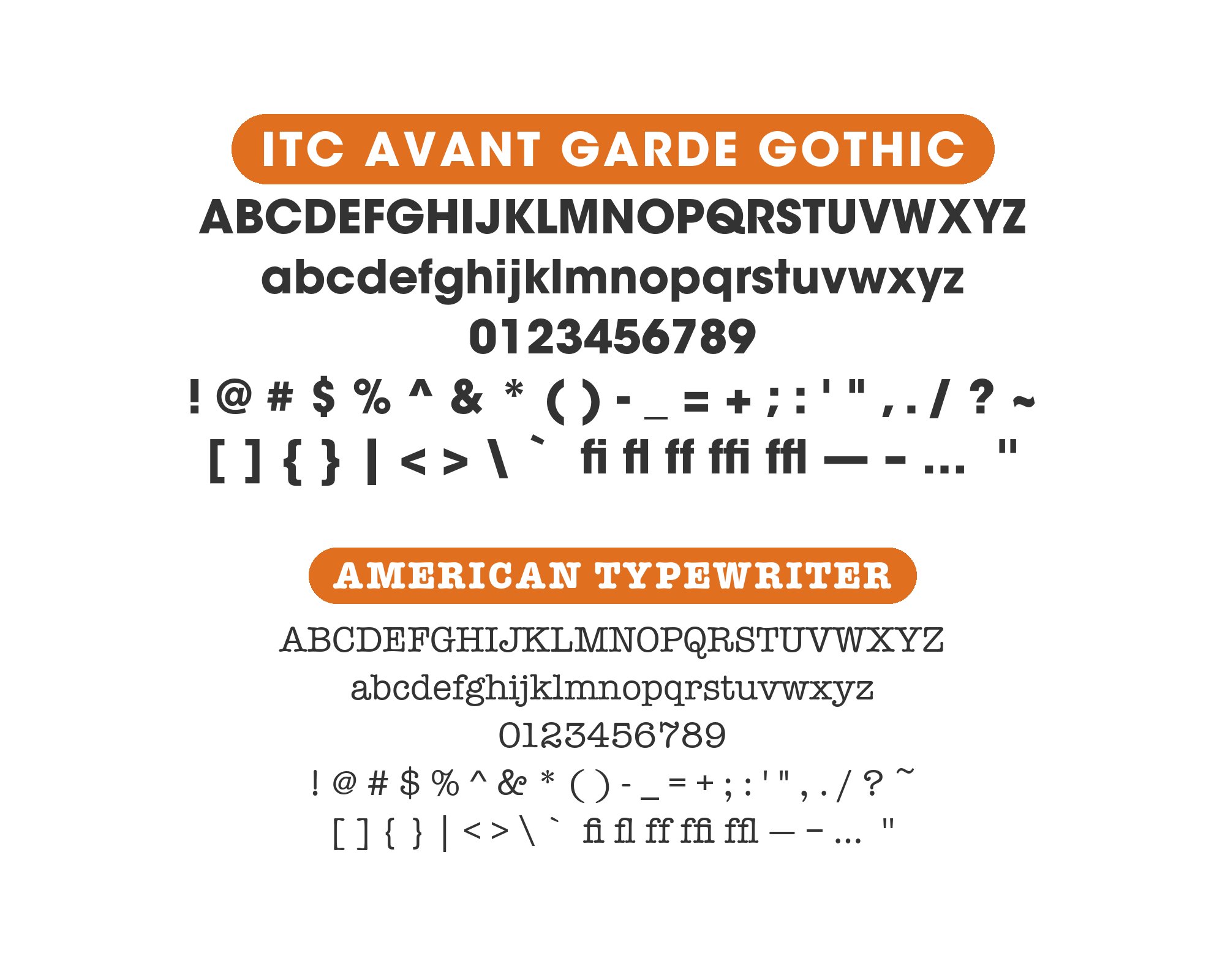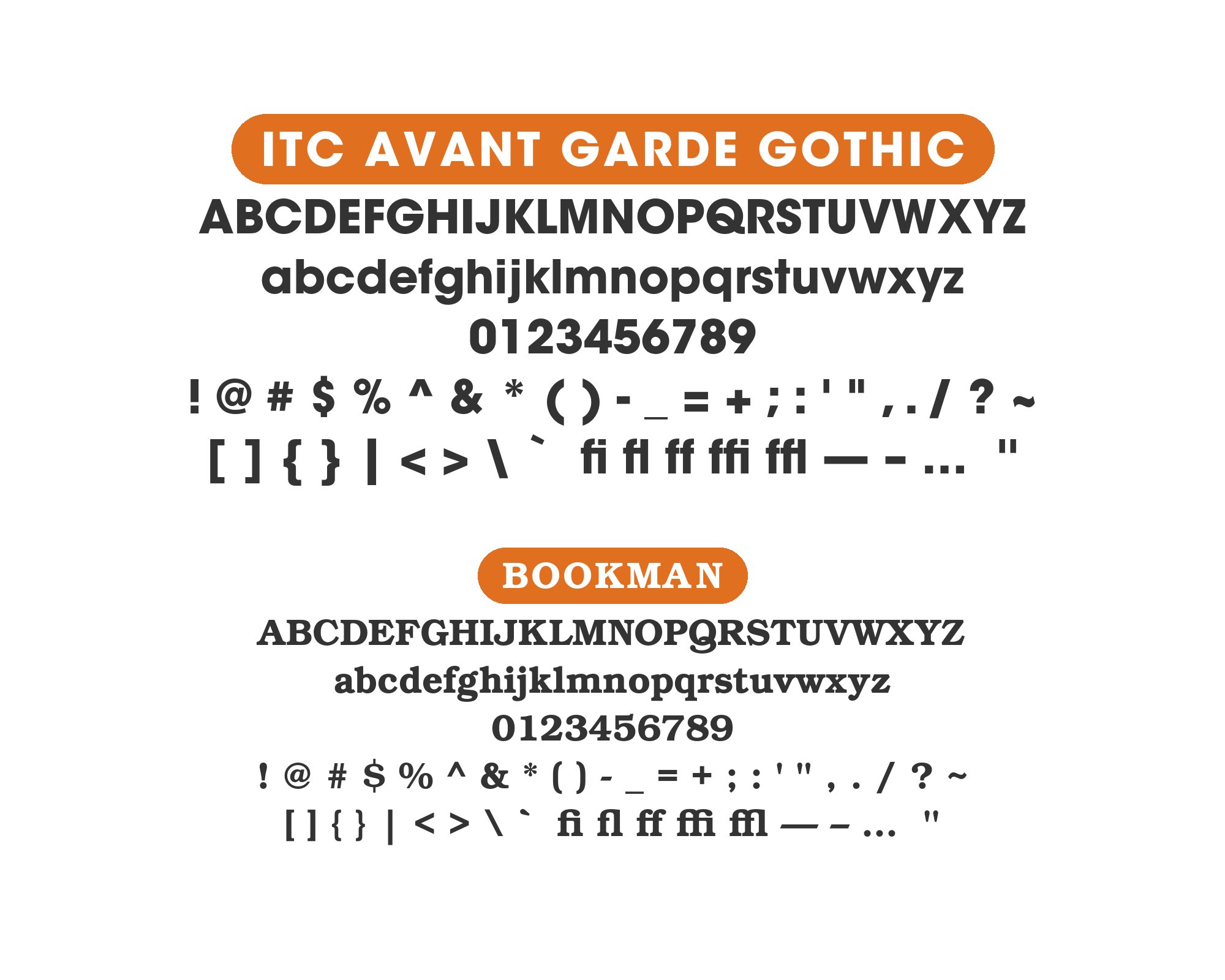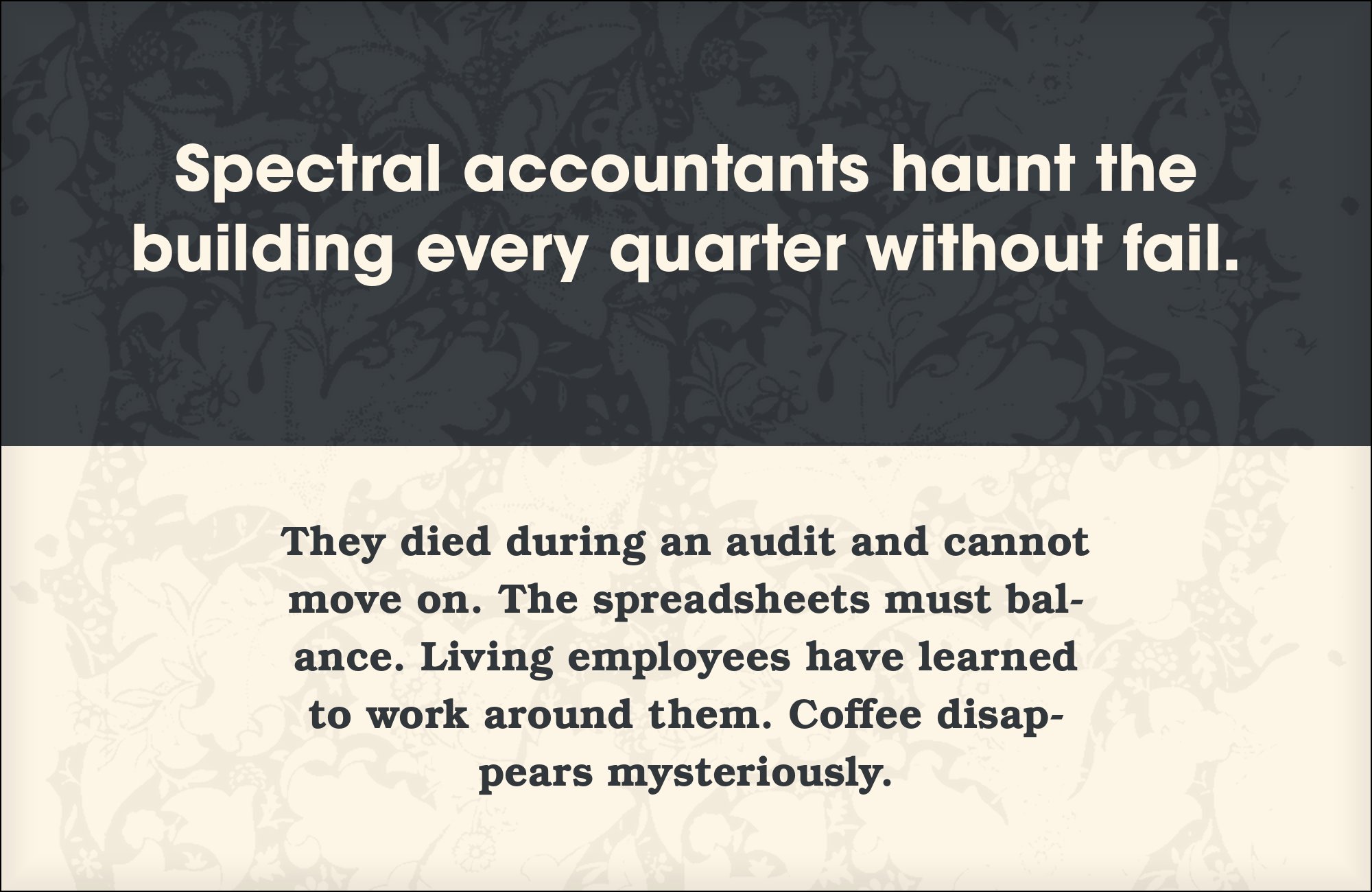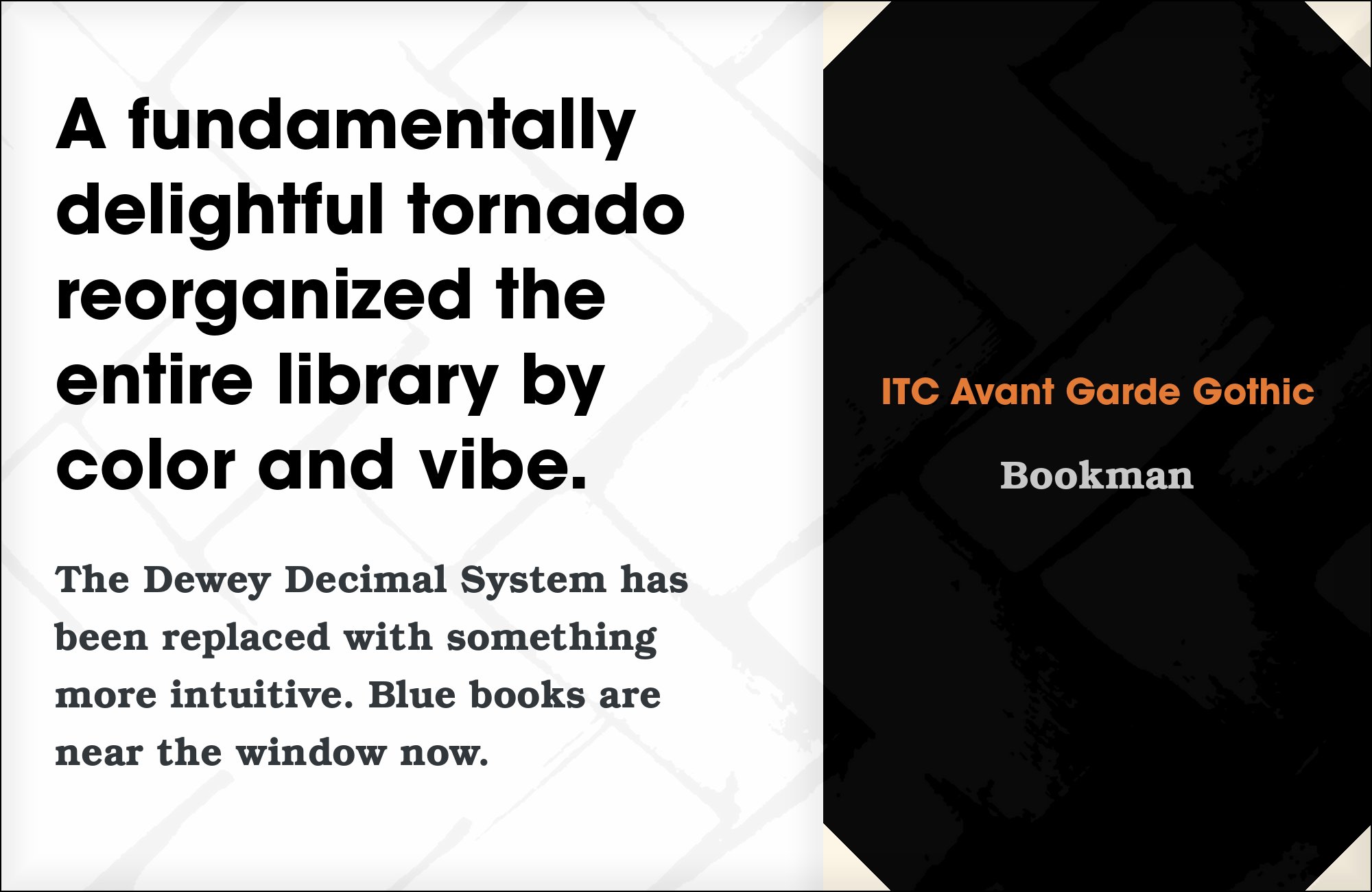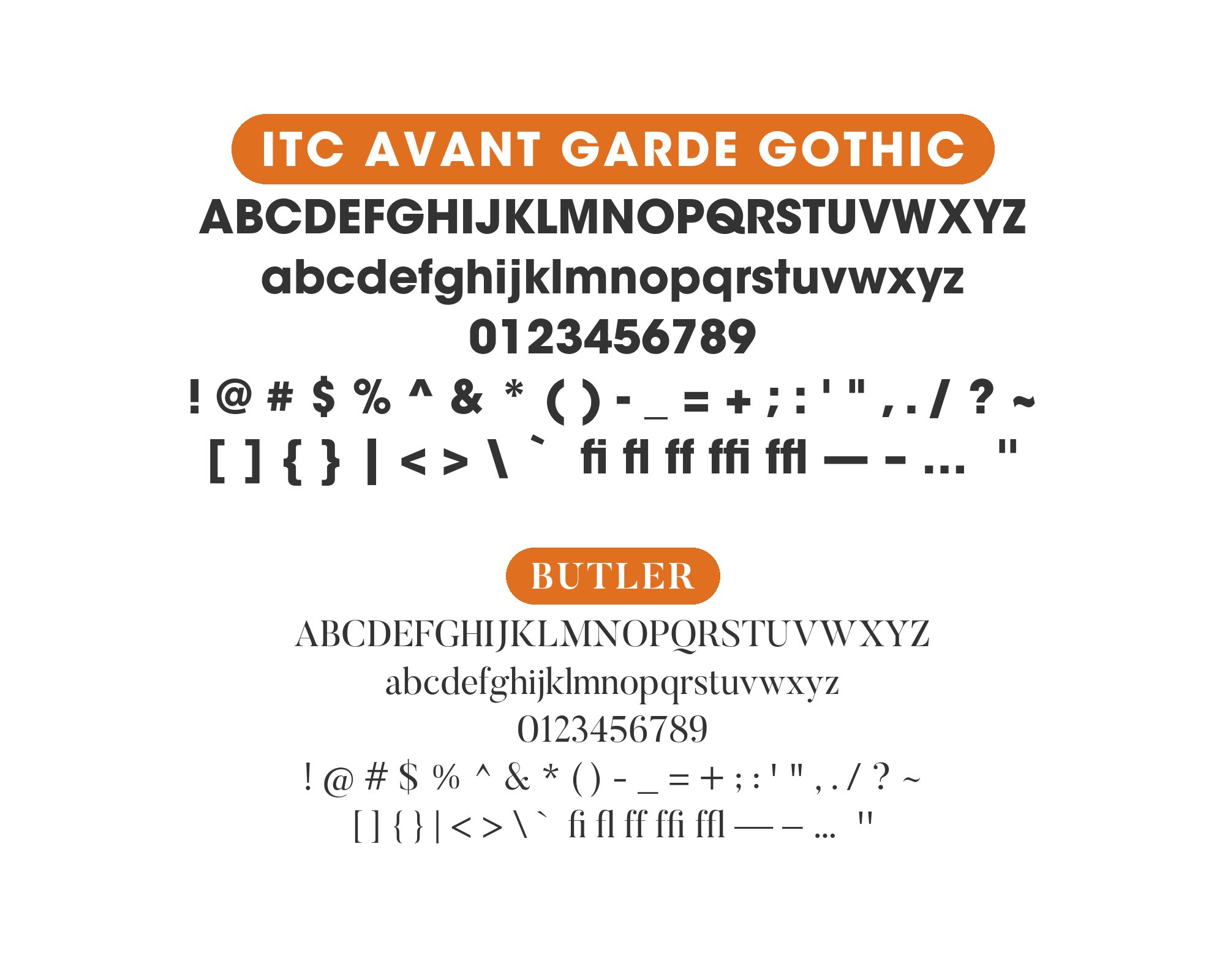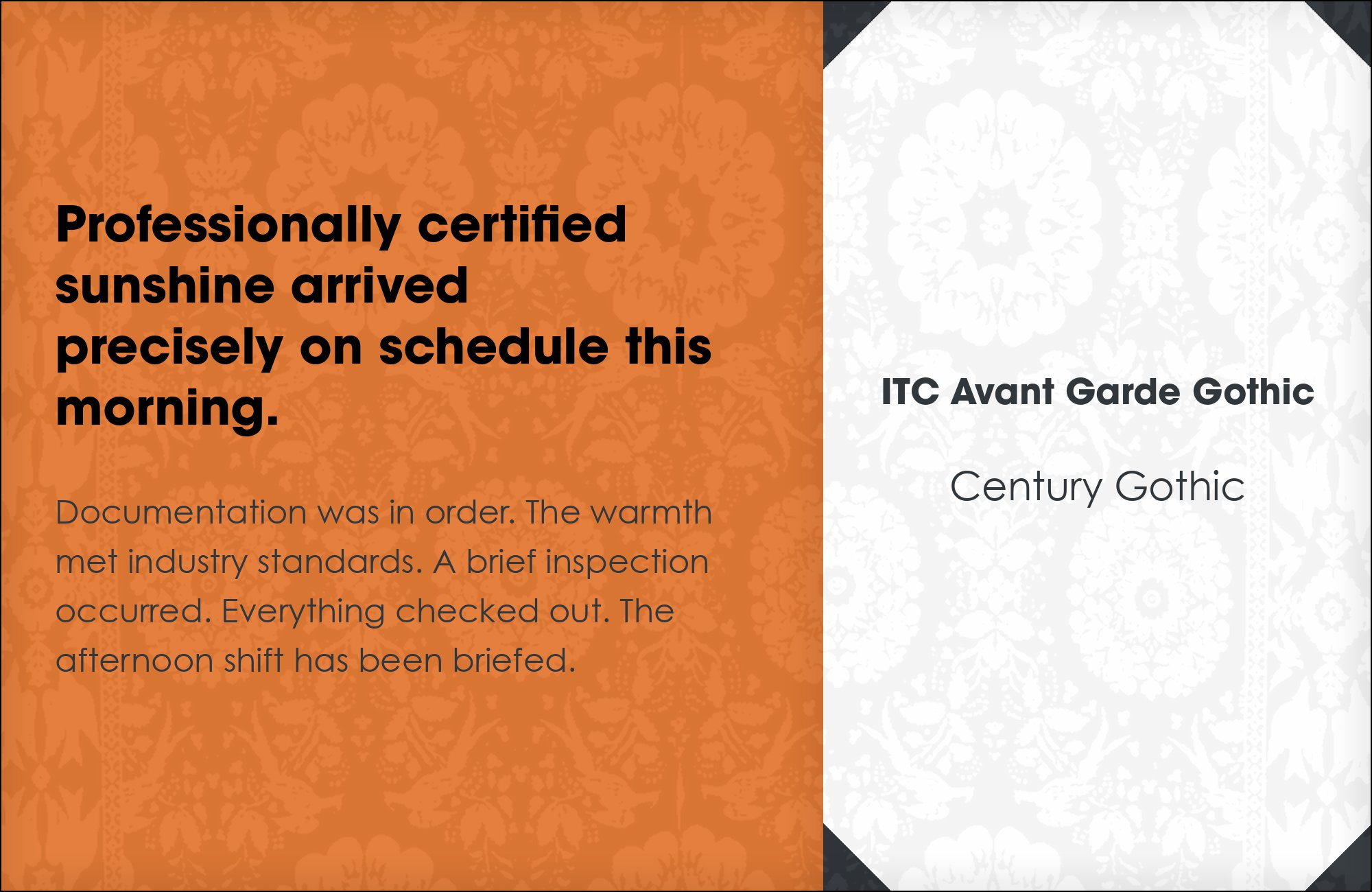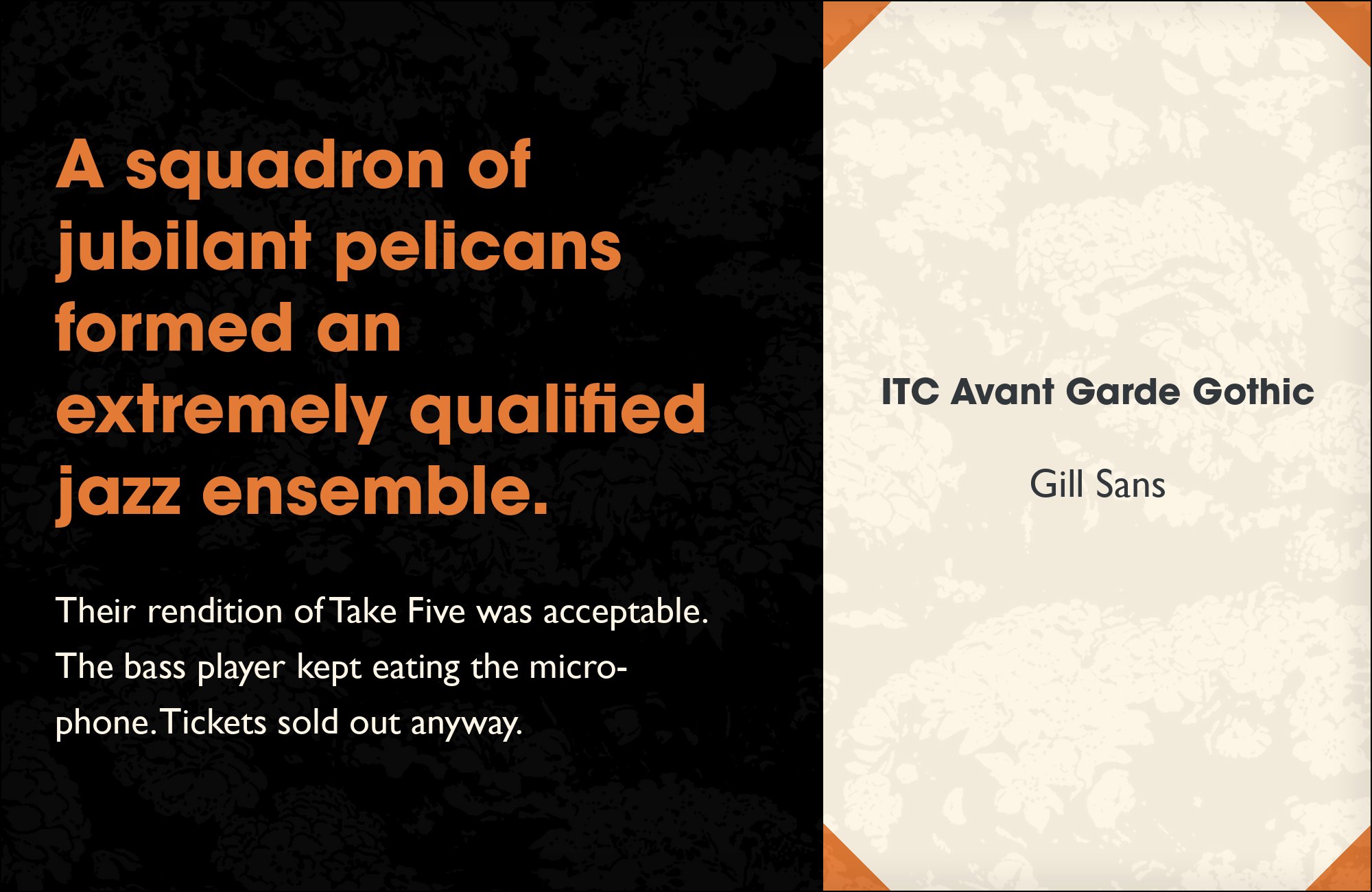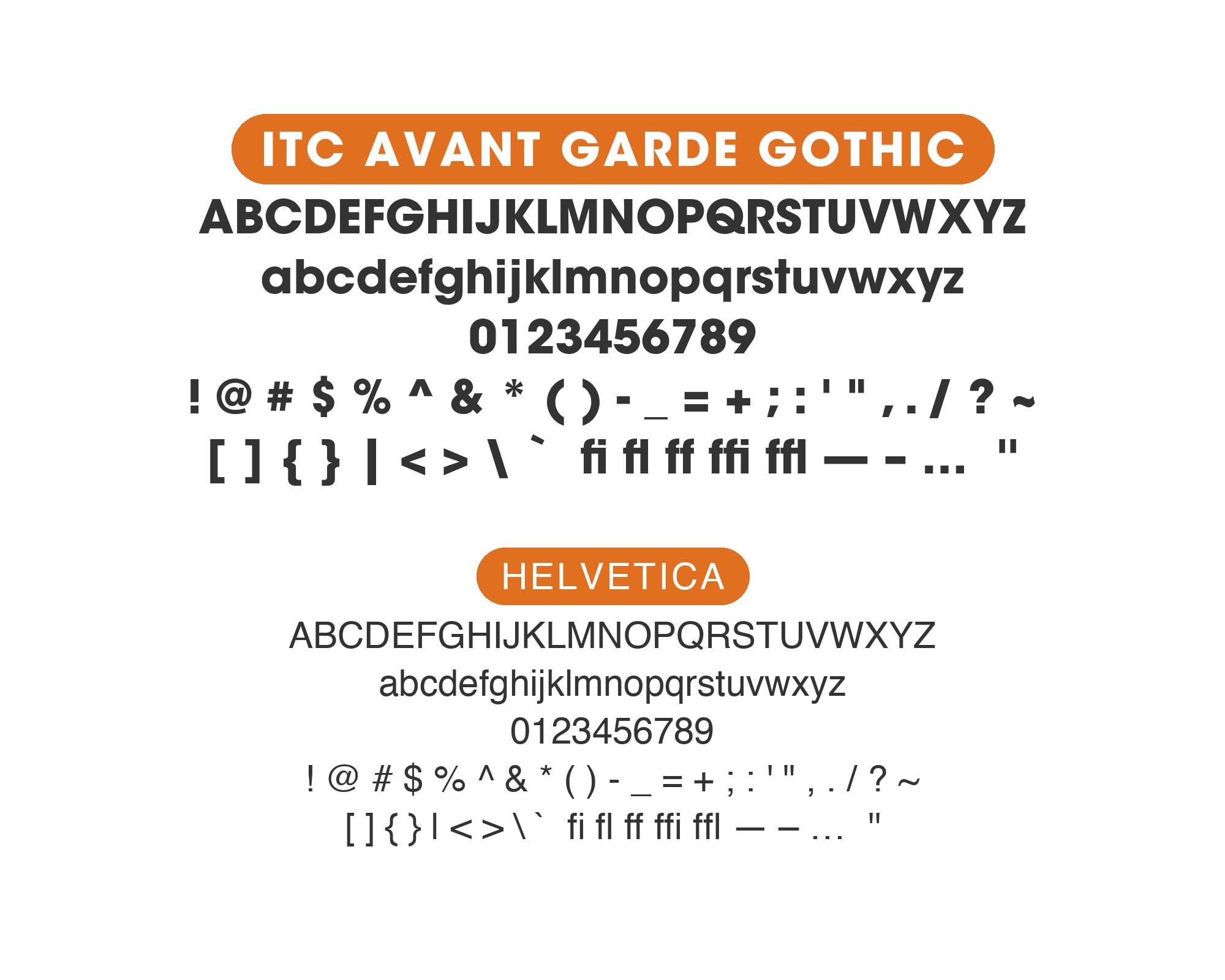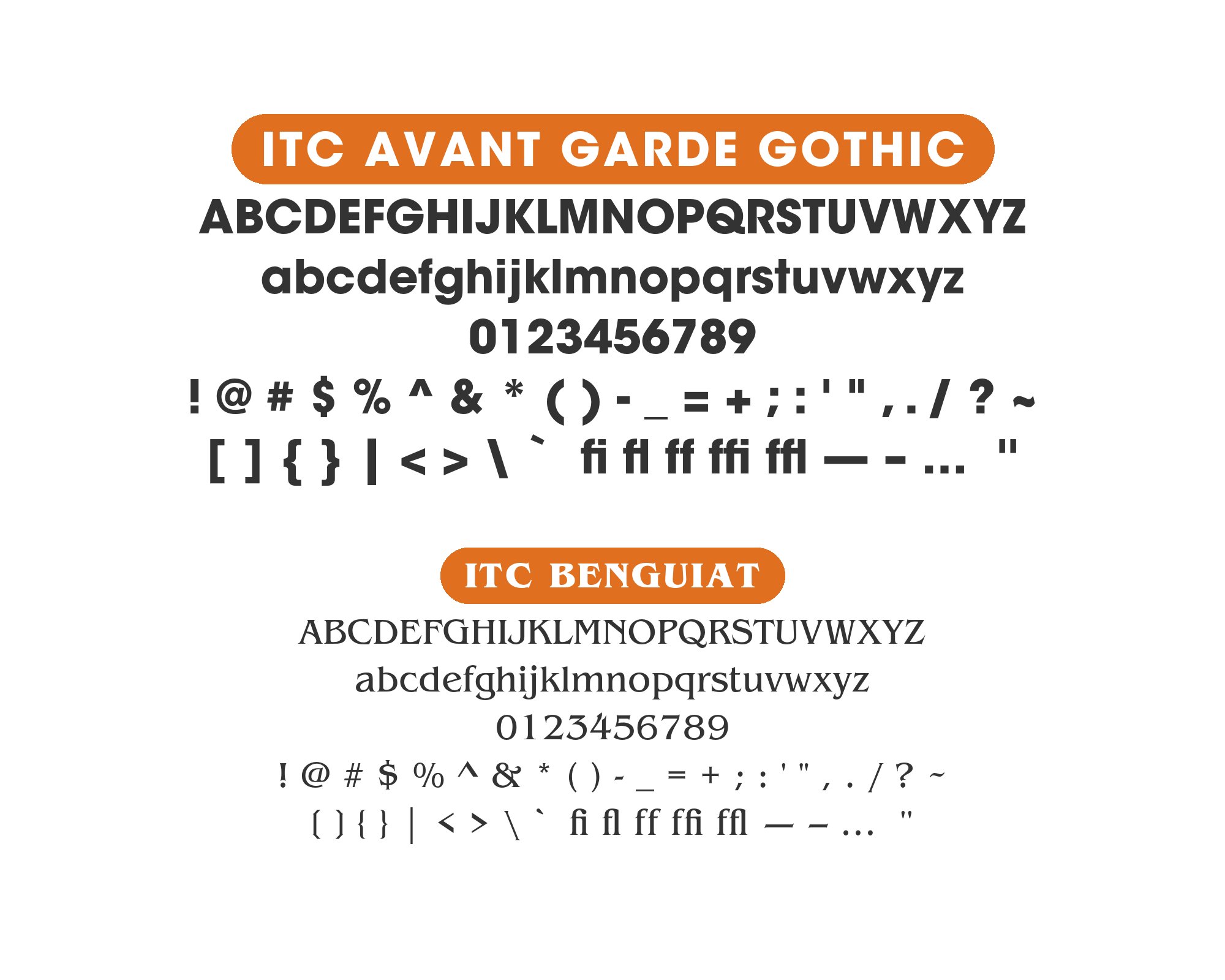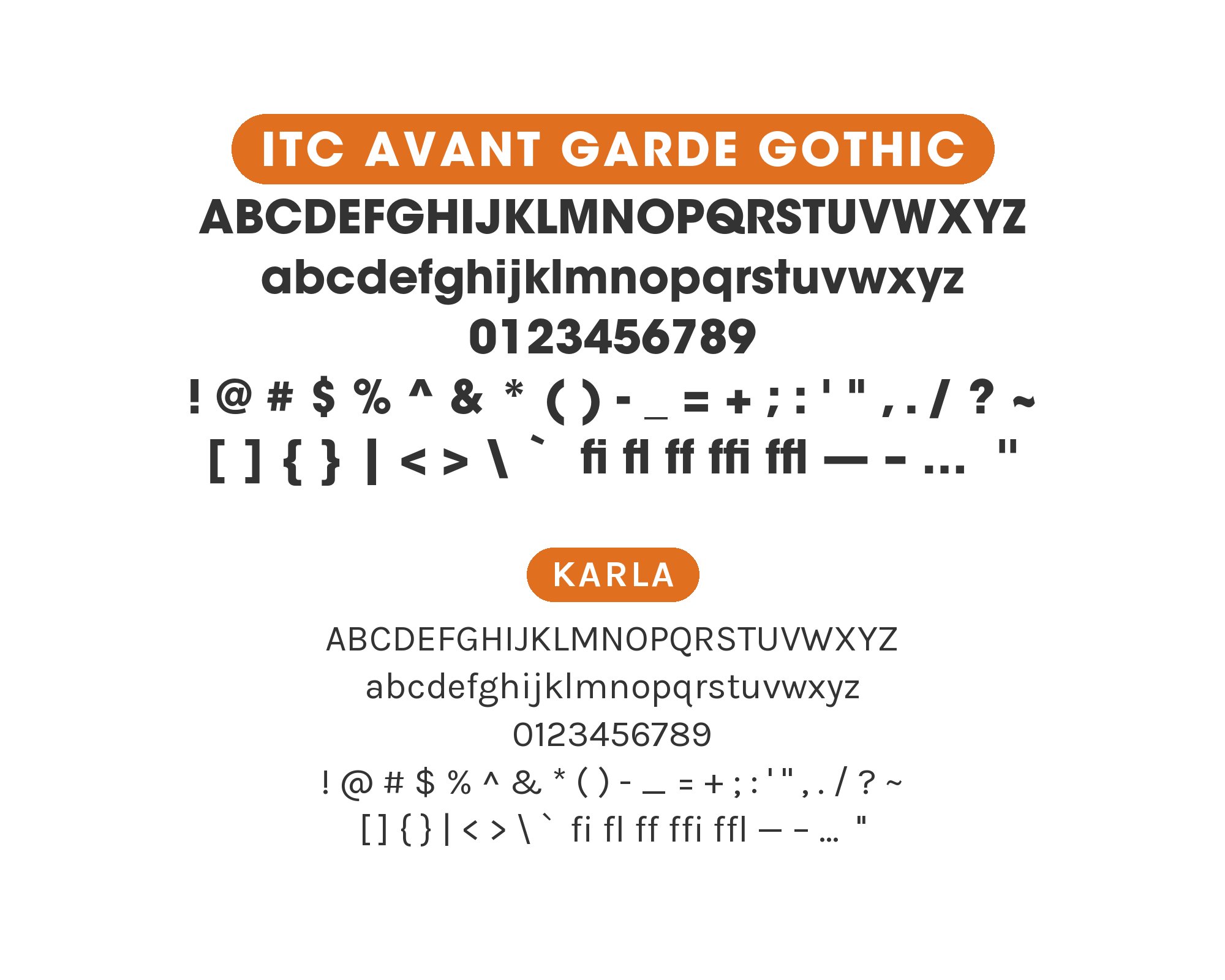
ITC Avant Garde Gothic pairs great with Bookman, ITC Lubalin Graph and Sabon. All 15 pairings are shown below in real rendered specimens, with the reason each one works.
What fonts go with ITC Avant Garde Gothic? The face is built from perfect circles, razor-tight letterfit, and ligatures that interlock like machine parts — so the question is really about what can breathe next to it.
Rendering note: the Bookman specimens below use URW Bookman L, URW’s donated PostScript alternative to Bookman.
Herb Lubalin and Tom Carnase drew Avant Garde Gothic from the logotype of Avant Garde magazine, and ITC released the roman weights in 1970; Ed Benguiat added the condensed cuts in 1974, and André Gürtler, Christian Mengelt and Erich Gschwind drew the obliques in 1977. The lowercase is a circled-geometry system: near-zero contrast, monolinear strokes, and famous alternate ligatures that only survive at generous sizes and loose enough settings. It is the clearest surviving statement of 1970s geometric display sans drawing: the tight letterfit and interlocking ligatures that make a poster line work are the same features that break a paragraph, and every pairing decision starts there.
The evidence for what follows is unusually layered: Typewolf’s curated suggestion plus a decade of real-site sightings, Typ.io’s live co-usage data, and the Fonts In Use archive’s print-era records reaching back to 1972. One pattern repeats across all three: Avant Garde Gothic is nearly always the dominant display element, while its partner takes a clearly separate role. Here are 15 fonts that pair with ITC Avant Garde Gothic, all documented.
1. Bookman
Give Bookman the paragraphs and Avant Garde the page furniture: titles, numbers, drop caps. Bookman’s wide fit wants loose leading and modest sizes, and its warmth lets the geometric face stay cold by contrast. The pairing defined 1970s editorial design and still works anywhere confidence matters more than restraint.
Bookman grew out of nineteenth-century Old Style Antique. American Type Founders sold it as Bookman Old Style by 1903, and Ed Benguiat drew ITC Bookman in 1975. Typewolf suggests it with ITC Avant Garde Gothic. The logic is warmth against geometry: Bookman’s sturdy, bracketed slab-ish serifs and generous curves give Avant Garde’s rigid circles a literary counterweight that carries body copy without embarrassment. The pairing reads as 1970s editorial confidence — ITC issued both faces inside the same decade — and it works wherever headlines need geometric polish over a humanist reading text.
2. ITC Lubalin Graph
The Daughter identity shows the family pairing in current production: Lubalin Graph for text-weight moments, Avant Garde for the geometric display layer. Because the two share construction logic, hierarchy must come from size and weight alone — there is no style contrast to lean on. Keep Avant Garde above 20 points and the system holds.
Herb Lubalin designed both faces, and ITC Lubalin Graph is Avant Garde’s own construction logic redrawn with slab serifs: same circular bowls, same tight fit, drawn out for ITC four years later in 1974 by Tony DiSpigna and Joe Sundwall. This is the rare within-family pairing — the slab version carries text while the gothic keeps display, without breaking the visual DNA. Typewolf documents real-site co-usage (the Daughter identity, 2018) on top of the design-history argument. When a brand wants one geometric voice across both roles, this is the documented answer, and it holds because the slab’s serifs give the eye a horizontal cue at text sizes that the bare gothic withholds.
3. Sabon
Sabon carries long reading at 10 to 12 points with the ease that made it a book designer’s staple, while Avant Garde stays confined to headlines and short display lines. The four-century gap between the faces does the stylistic work; the designer’s job is only to keep the geometric face away from justified body text, where its tight fit turns words into blocks.
Jan Tschichold’s 1967 revival of Claude Garamond’s roman appears with Avant Garde in Typewolf’s real-site usage log. The pairing spans four centuries by design: sixteenth-century old-style warmth — bracketed serifs, calligraphic axis, moderate contrast — against compass-and-ruler geometry. Sabon quietly carries paragraphs while the geometric face owns every display moment, and the generation gap between the two reads as intentional sophistication rather than accident. It is the classic editorial move for design-forward publications, and it survives because the serif’s calligraphic axis keeps long settings comfortable where the geometric face would tire the eye.
4. Space Mono
The Big Omaha site used the pairing exactly where it belongs: a tech-conference identity where the monospace signals engineering and the geometric face signals design. Space Mono at small sizes for labels, code snippets, and data; Avant Garde for the big statements. The shared love of geometry keeps the two voices in one family of intent.
Colophon Foundry’s 2016 Space Mono shares Avant Garde’s engineered, geometry-first DNA but adds a fixed-width rhythm and slab-like terminals that signal technical contexts. Typewolf documents the pairing on the Big Omaha 2017 conference site, alongside Karla. The monospace’s mechanical evenness gives the geometric face a data-literate neighbor — dashboards, dev-tool branding, crypto, and anything that wants futurism with evidence. Both faces are built on circles; Space Mono adds the fixed advance width that Avant Garde’s proportional, ligature-heavy fit refuses.